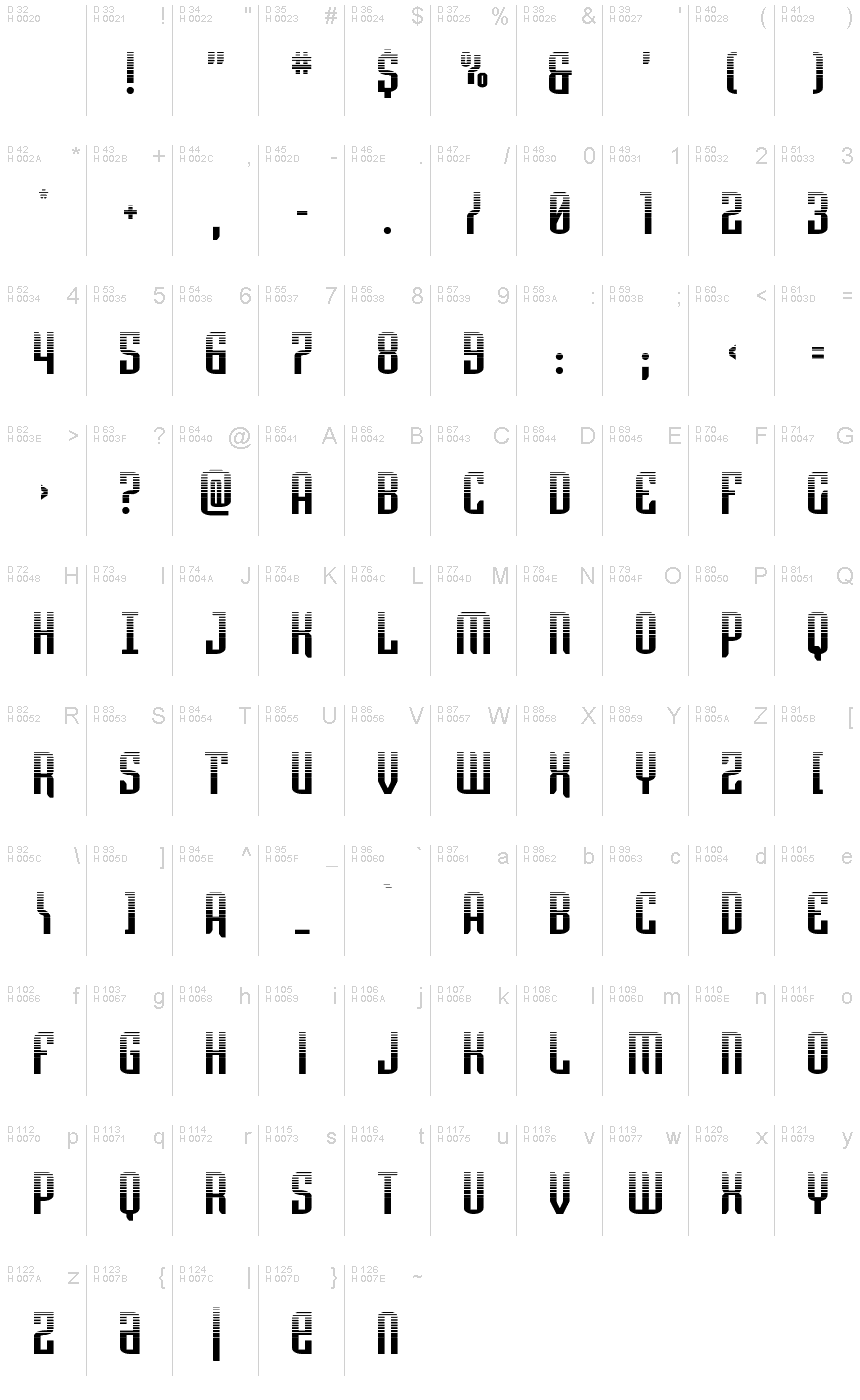
Icewave Halftone
Icewave Halftone is a cutting-edge display font from the renowned designer, Iconian Fonts. With its sleek and futuristic techno style, this extra-condensed typeface is perfect for daring and innovative projects that demand attention. Its sharp edges and unique halftone texture make it ideal for modern logos, sci-fi movie titles, or tech-oriented websites. Icewave Halftone infuses your designs with a sense of dynamic energy and makes a bold statement. Let your creativity soar as you explore the endless possibilities this font has to offer.